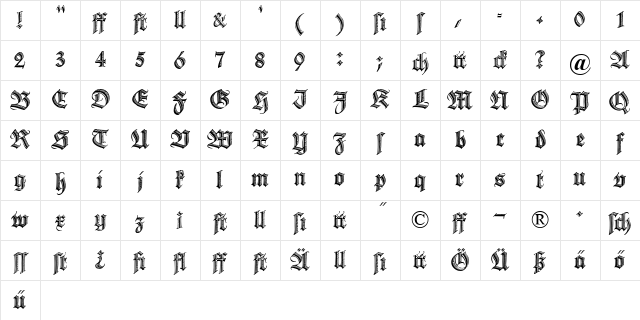
Deutsche Zierschrift Regular
Designer: Dieter Steffmann
Design Context for Deutsche Zierschrift
Deutsche Zierschrift is a composed and adaptable typeface that performs quietly and consistently across a wide range of design contexts.